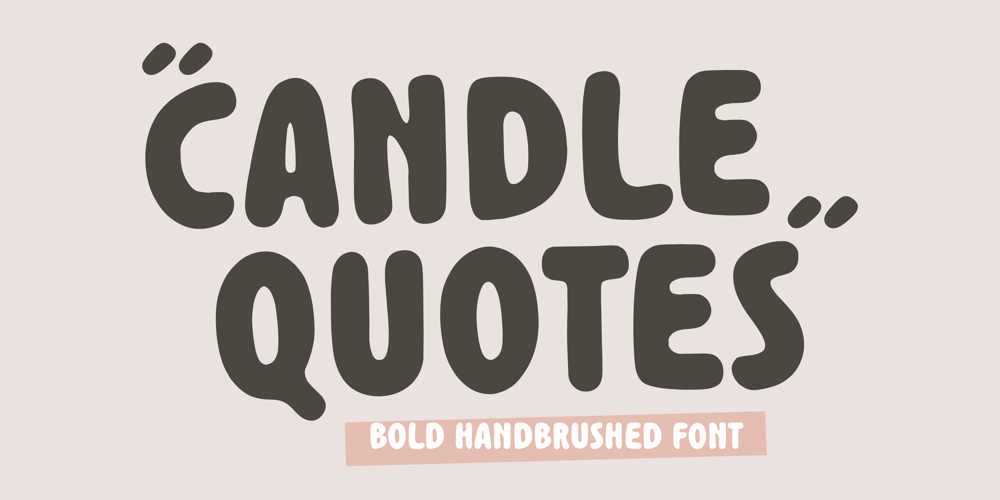
Candle Quotes
Candle Quotes font
Candle Quotes Font Family was designed by Restu Angga and published by Balpirick. Candle Quotes contains 1 styles and family package options. Introducing by Balpirick Studio.Candle Quotes is a Bold Handbrushed Font.This font is very suitable for writing quotes and notes. Apart from that, it can be used for logos, book covers, magazines, t-shirts, and others.This font only has uppercase letters – also multilingual supportEnjoy the font! Feel free to comment or feedback!Thank you!